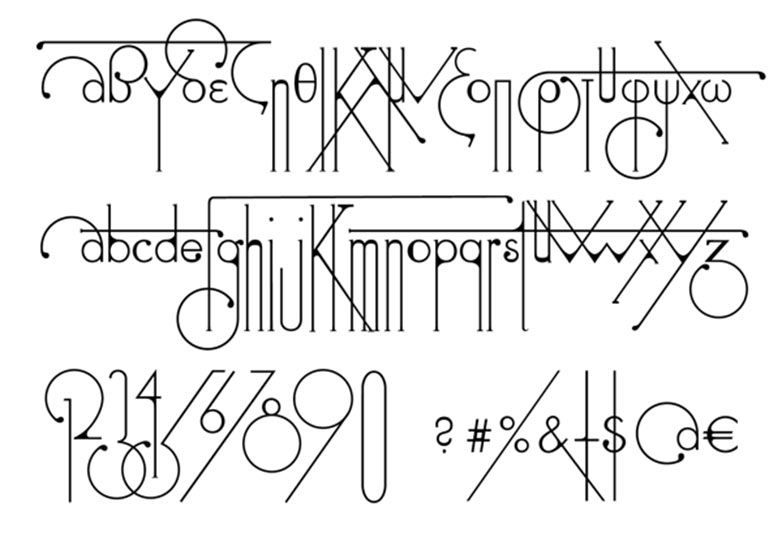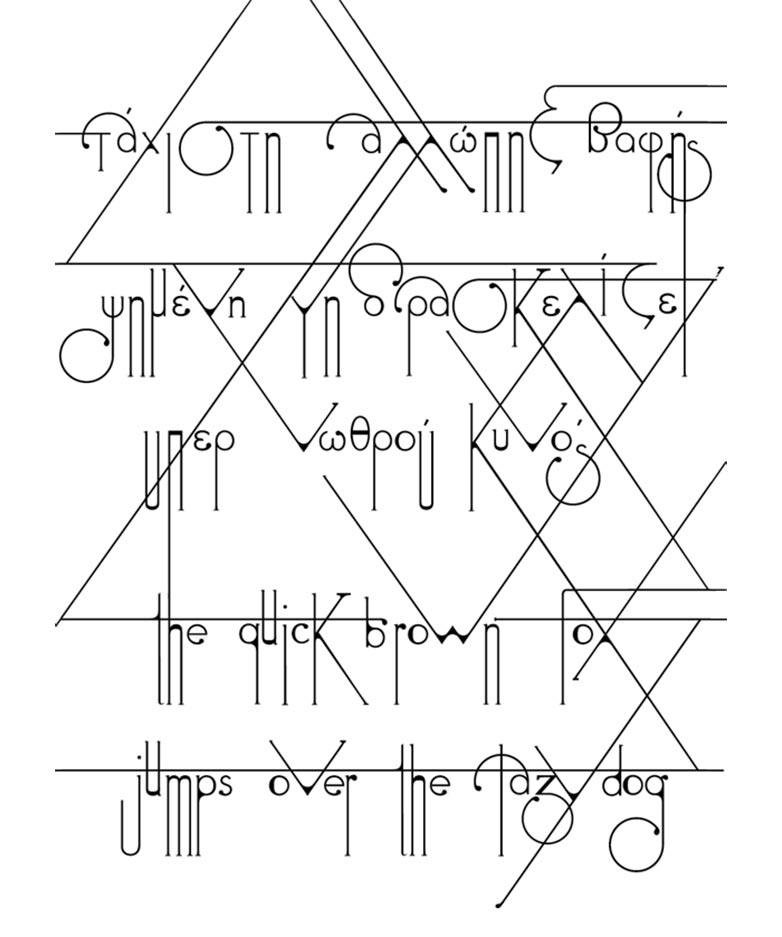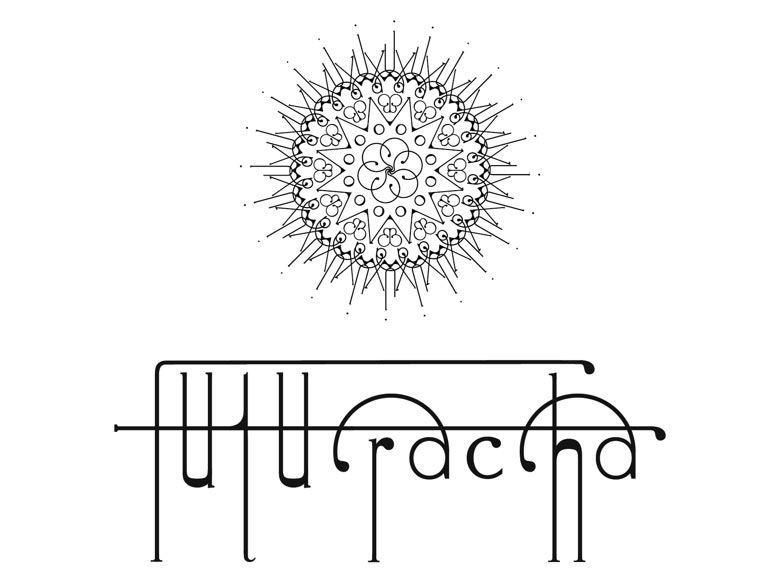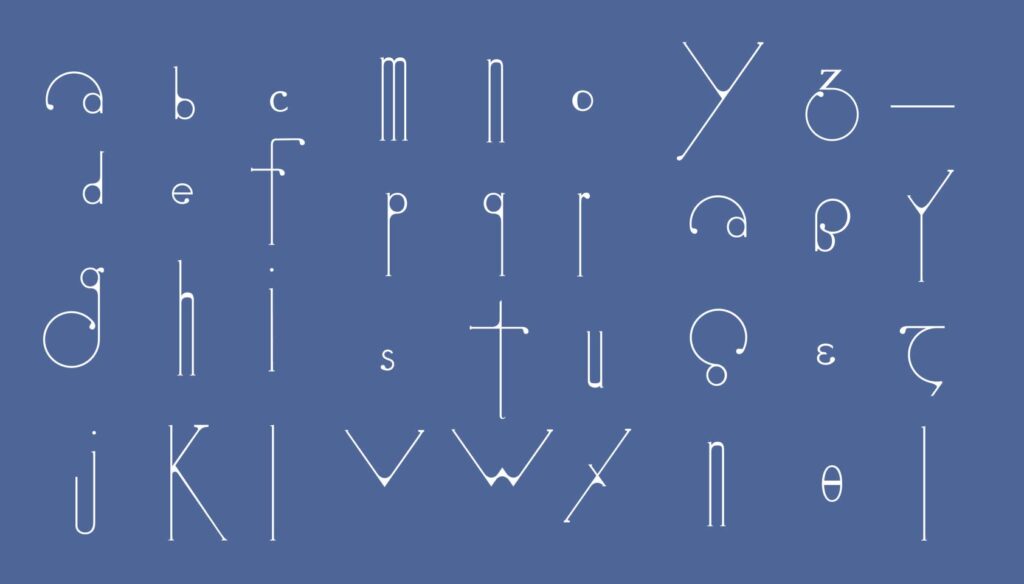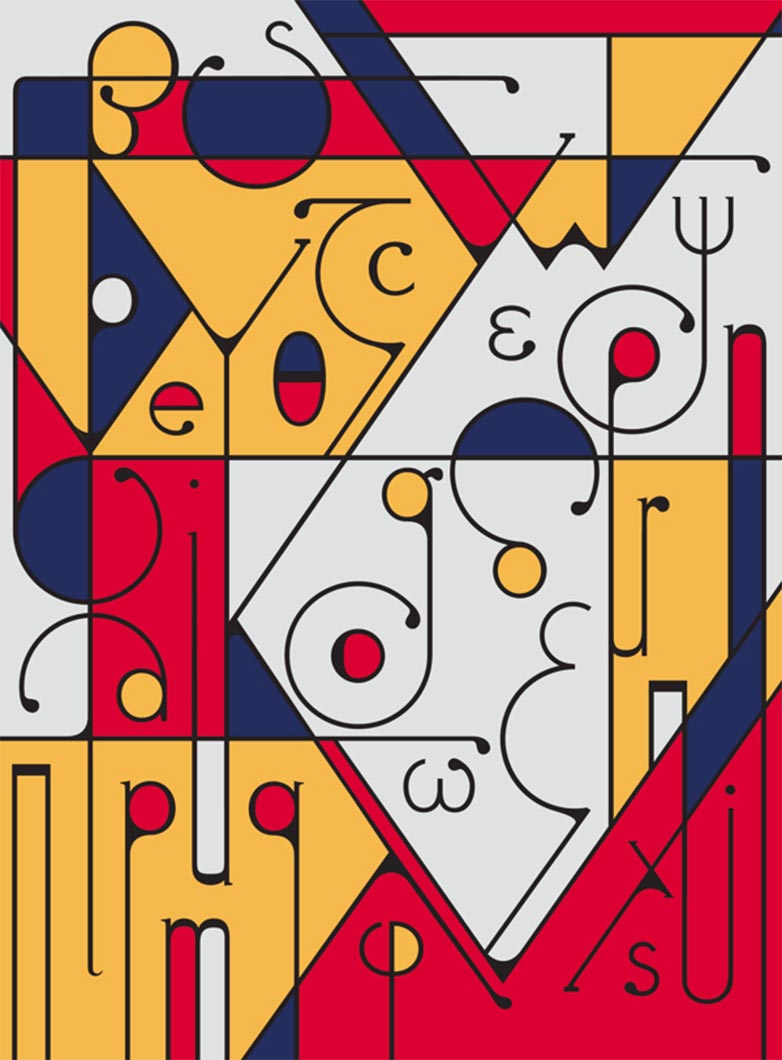
Is there anything better than a font named after the Spanish word for cockroach? Maybe a font named after that combined with the word “future”?
Futuracha is just that font. It’s a beautiful display font that’s great for things like logos or posters. Because of how stylized it is, it’s not suitable for body copy.
But that doesn’t mean it isn’t incredibly fabulous. The swooshes, exaggerated serifs, and irregular x-heights of the letterforms give it a very fluid, artistic look and feel. In normal text, the letters overlap, creating sometimes very interesting shapes and changing the overall look of the type.
Even in an example as simple as the alphabet, it’s amazing the number of awesome shapes and surprising effects that occur. Standard typographical testing phrases like “The quick brown fox…” also produce great results. With some tweaking, Futuracha makes it easy to create fantastic typographical designs.
Futuracha was designed by Odysseas GP of Athens, Greece while in graphic design school, in a typography course with professor K. Giotas. The design is roughly based on the forms of PF Futura Book, which the designer considers to have an ideal weight. Serifs are based on Claude Garamond typefaces.
The letterforms are reminiscent of the art nouveau style. Both Greek and Latin character sets are included, as well as numbers and symbols. It’s a great font to experiment with, as different letter combinations can form surprising visuals.